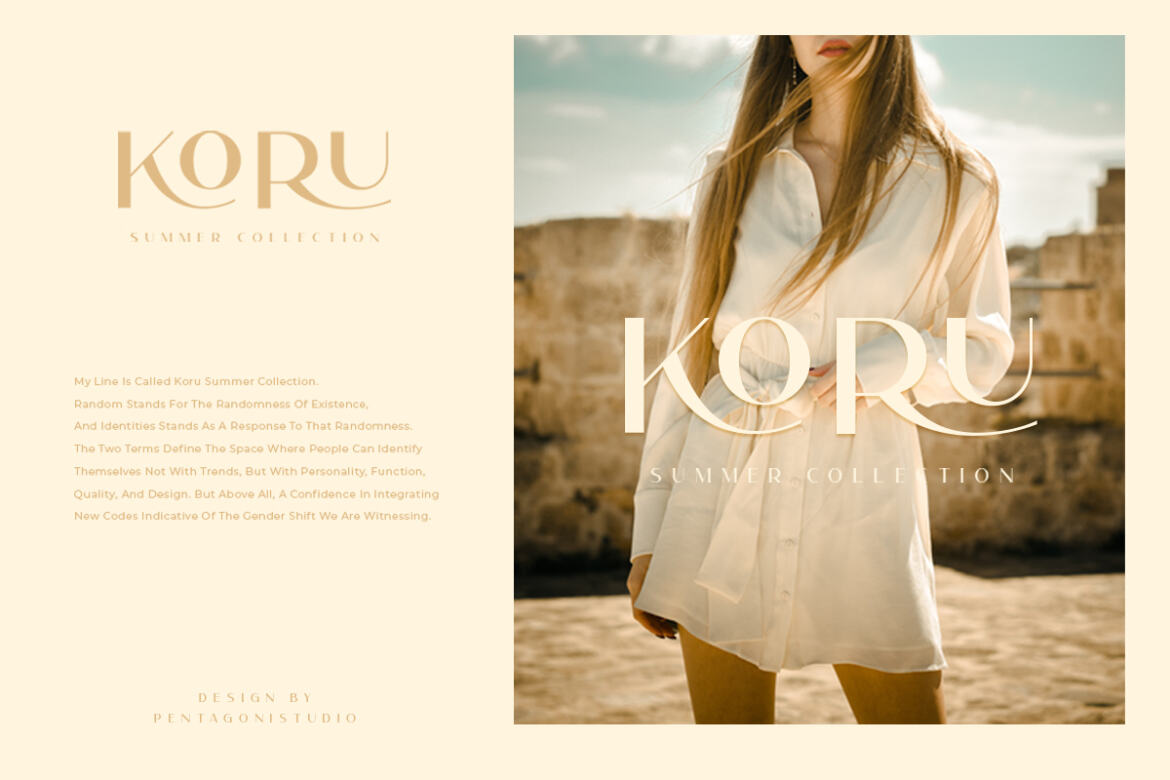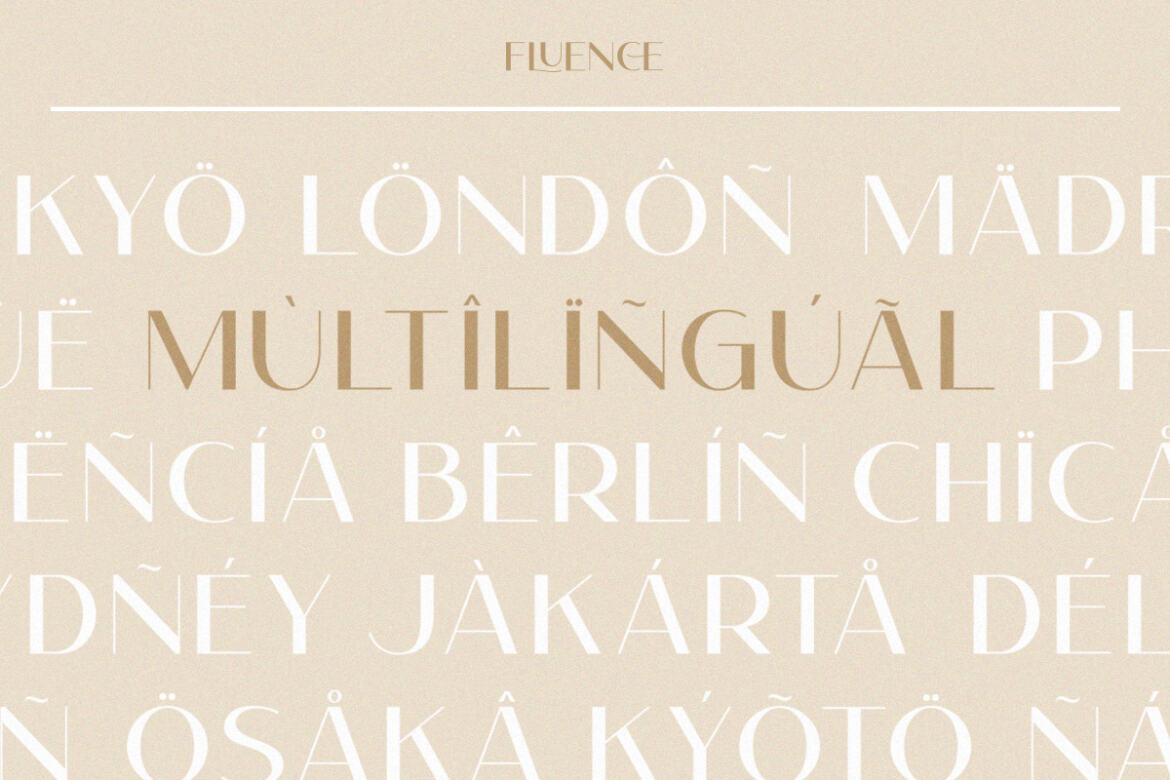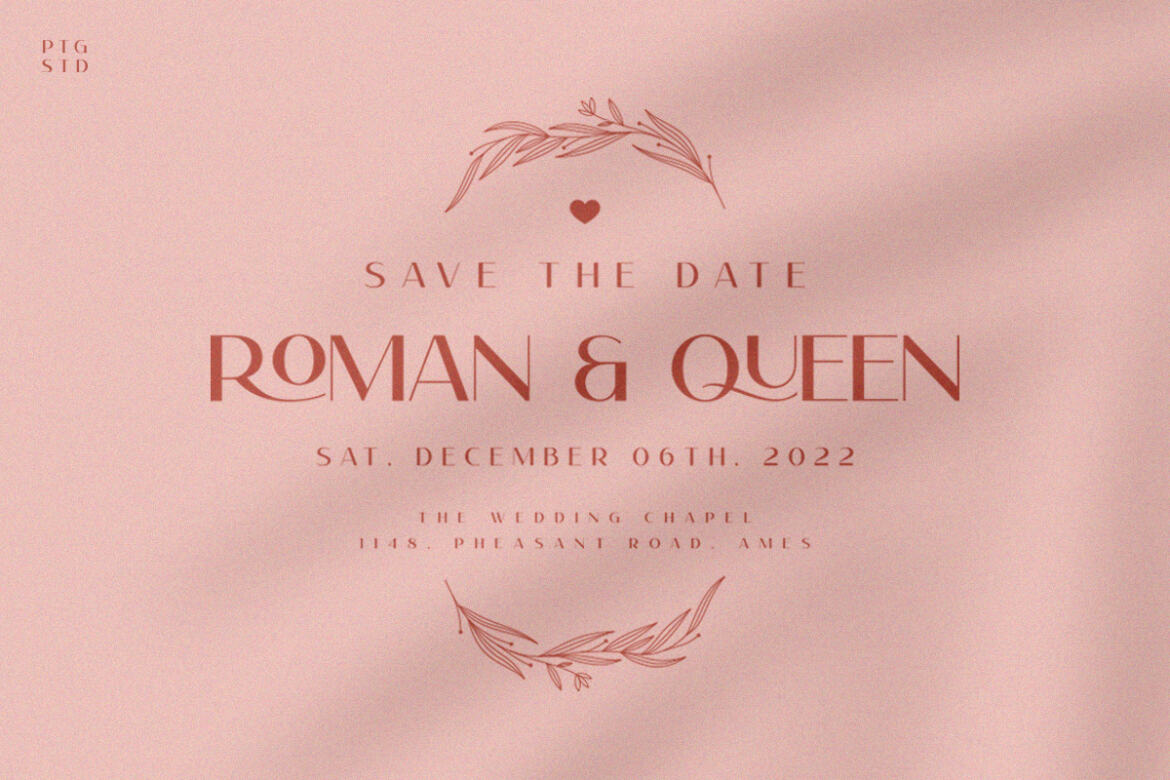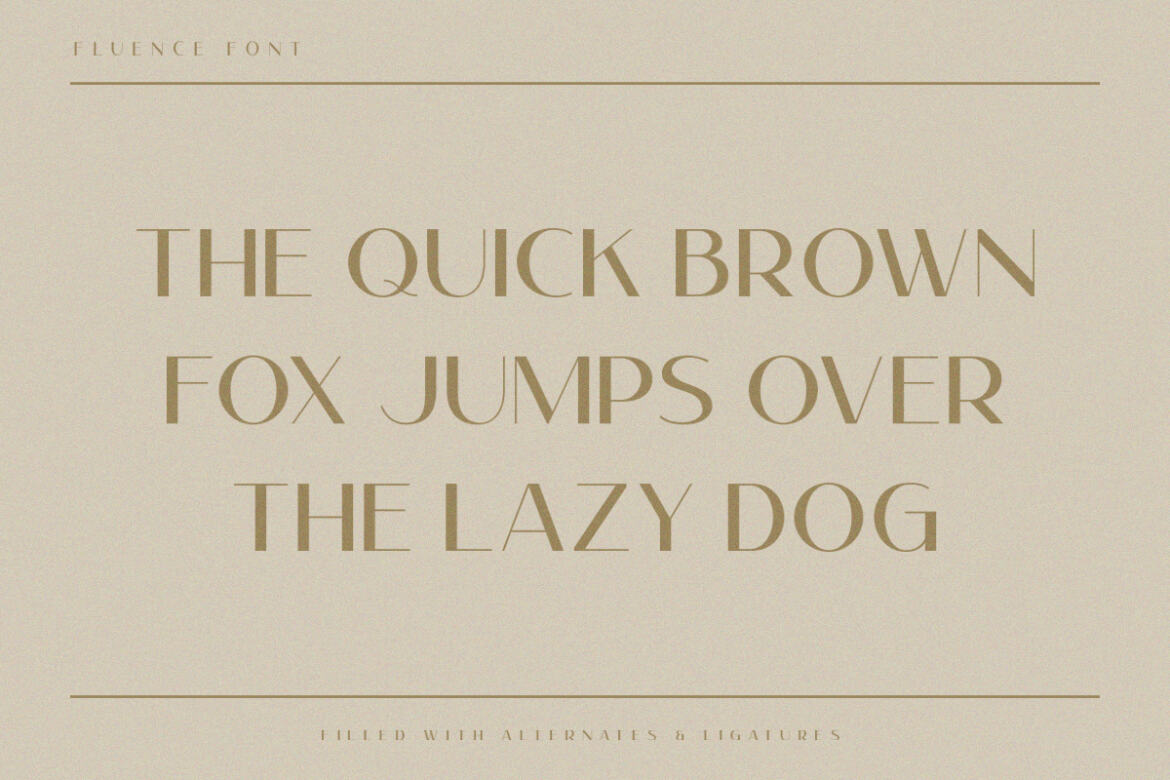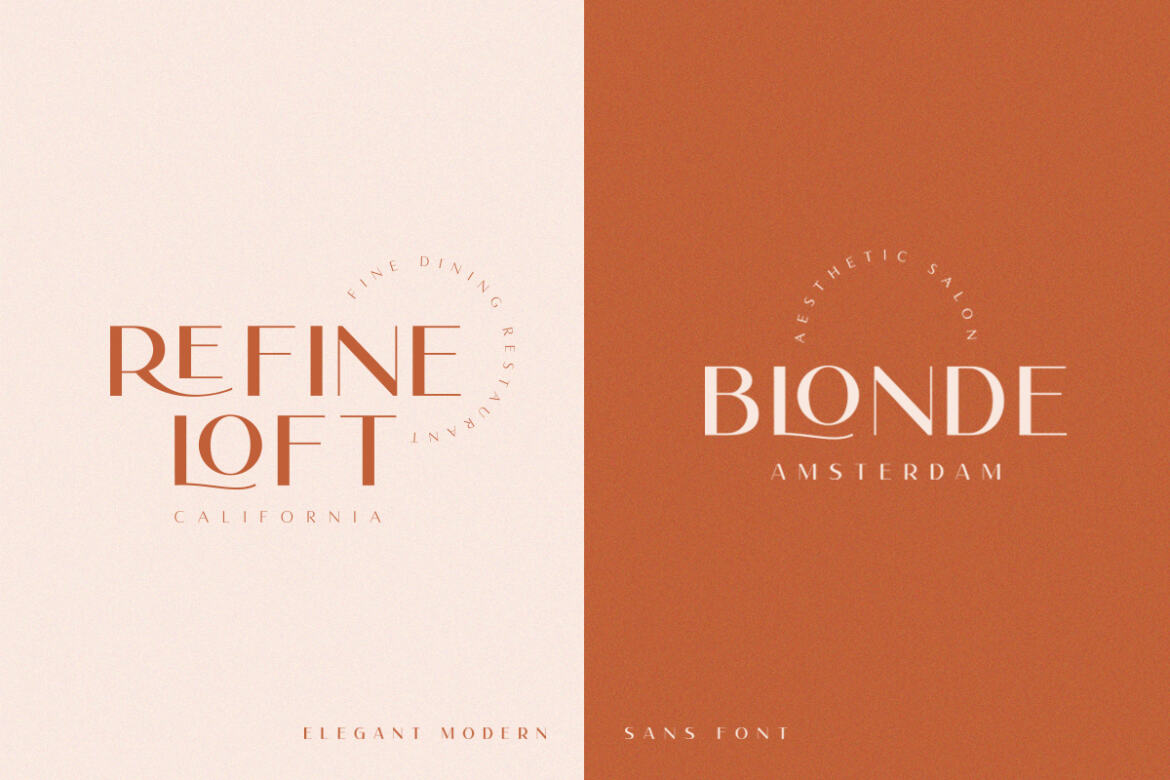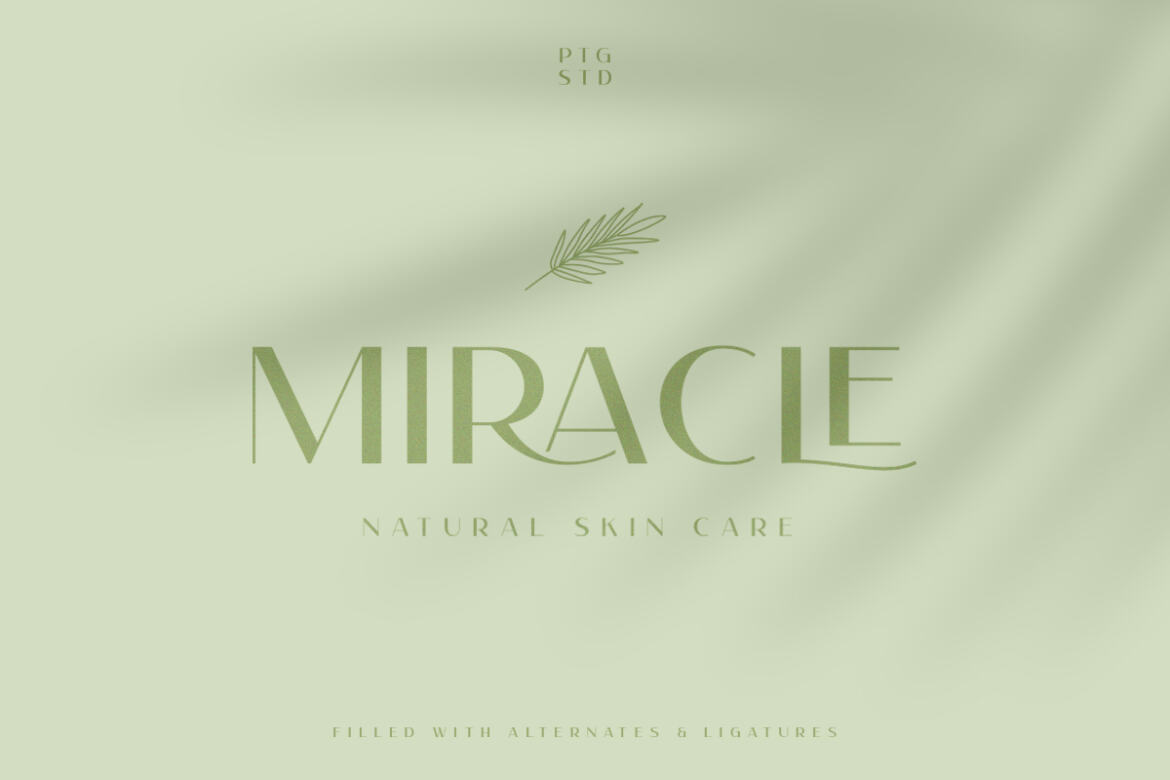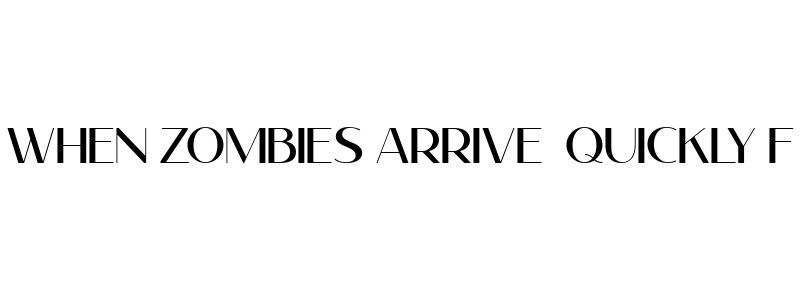
Fluence
Fluence Is An Elegant Sans Serif Font Inspired By Feminine and Elegant Character.
Font Features :
• • alternates
• • ligatures
• • logo bonus
• • multilingual
• • numbers and punctuation
• • uppercase & lowercase